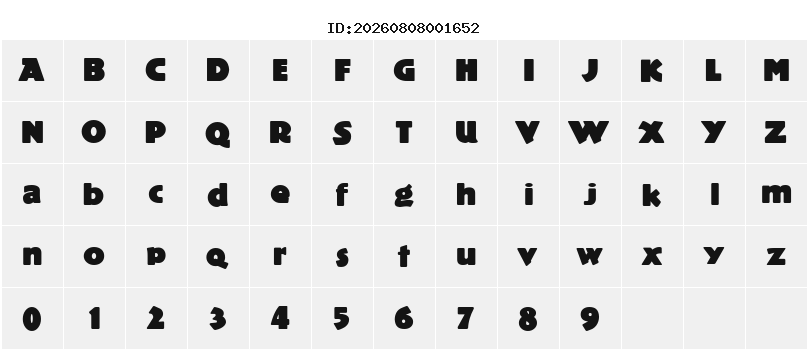
Pub Smooth Preview
• Font Name: Pub Smooth
• Full Font Name: Pub Smooth
About Pub Smooth.ttf
Pub Smooth.ttf is a modern, elegant sans-serif font designed for ultimate readability and visual harmony. Perfect for branding, headlines, web design, and print materials.